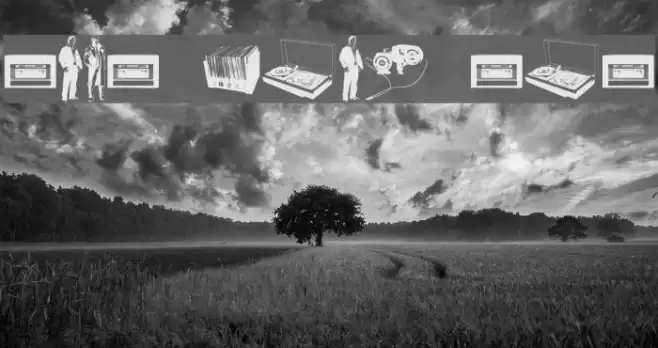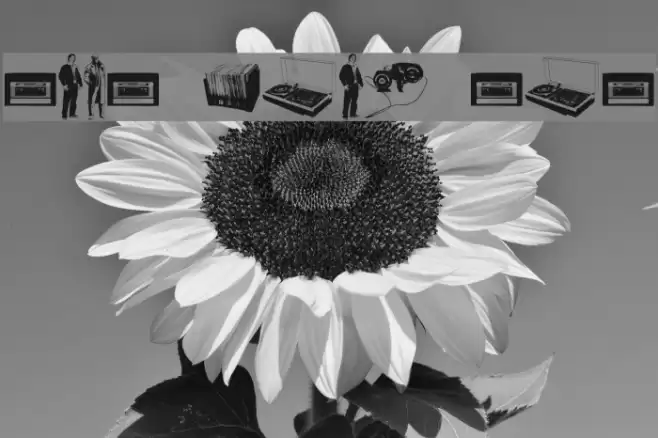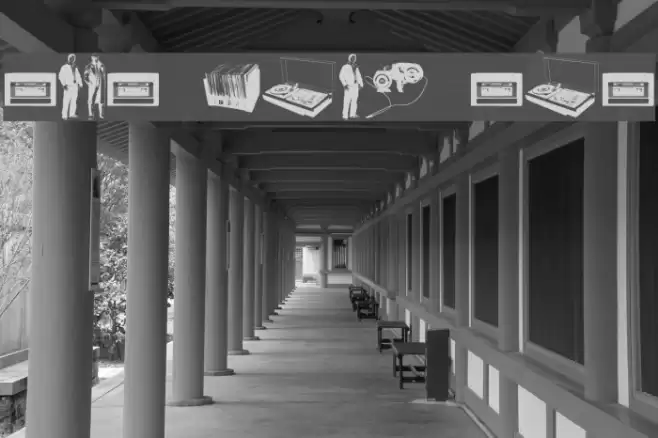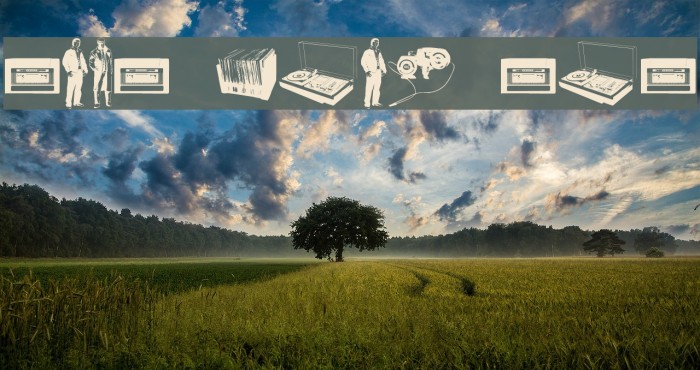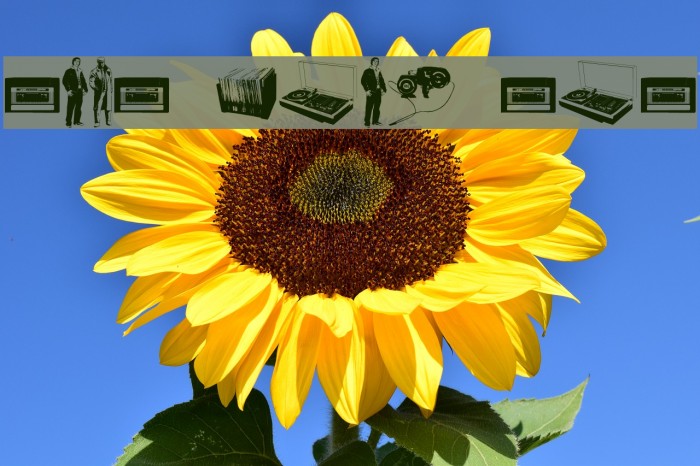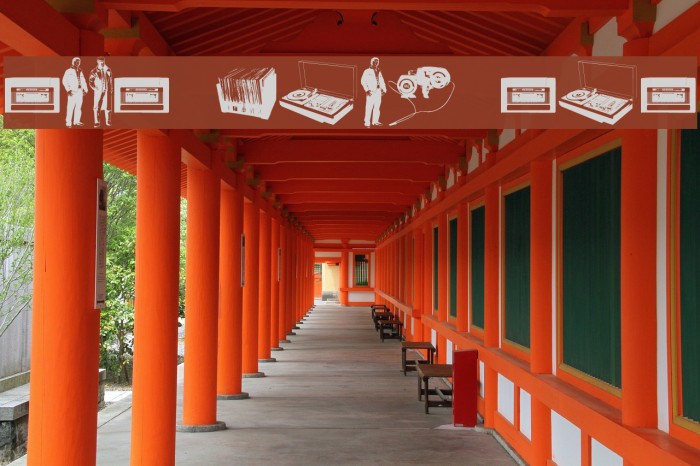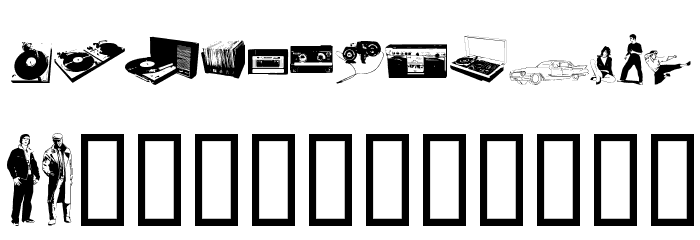
Fenotype dings preview Font
Fenotype dings preview Description
A collection of black-and-white dingbat illustrations featuring retro music equipment (turntables, cassette tapes, records, tape decks), vintage cars, and stylized figures in classic poses. The images are detailed and have a nostalgic, vintage feel.
Retro-themed dingbat set with music gear and vintage figures from Dingbats fonts.
- Proposed Projects: Music event posters, retro album covers, themed party invitations, vintage-style branding, decorative elements for flyers.
- Overall Style: Vintage, Decorative
- Use Case: Decorative icons, Themed graphics, Posters